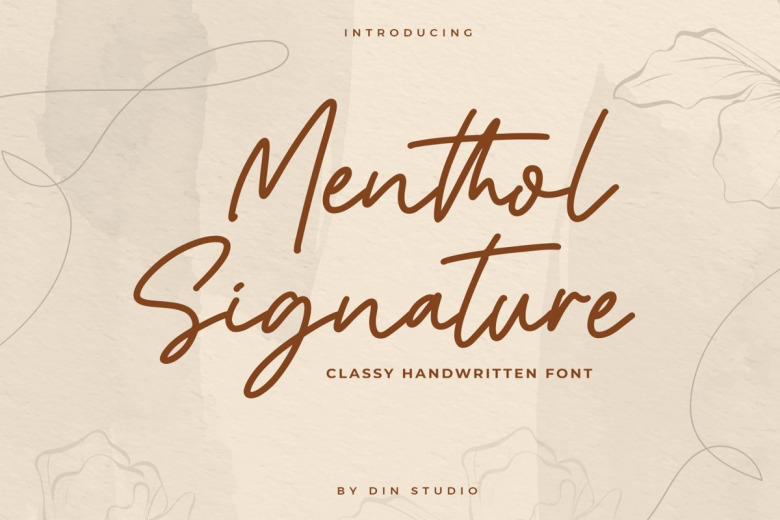
Menthol Signature Handwritten Font
Menthol Signature Script Font is a classy monoline handwritten font. Made for any professional project branding. Every letter has a unique and beautiful touch. This type of font perfectly made to be applied especially in headlines which is need a standout font, and the other various formal forms such as invitations, labels, logos, magazines, books, greeting / wedding cards, packaging, fashion, make up, stationery, novels, labels or any type of advertising purpose.